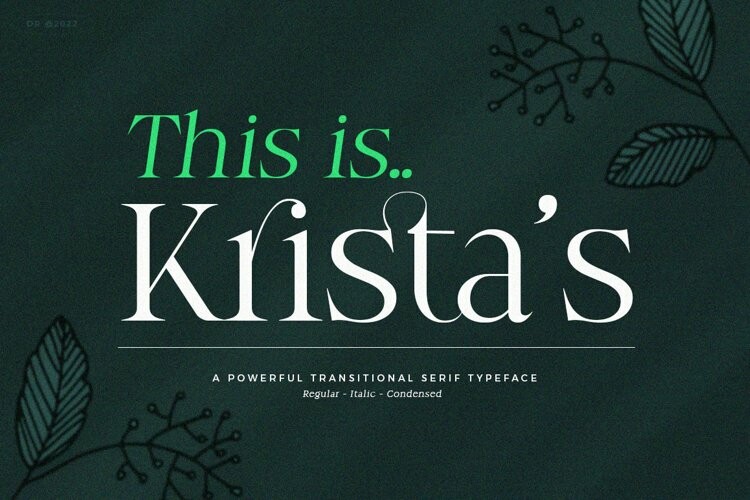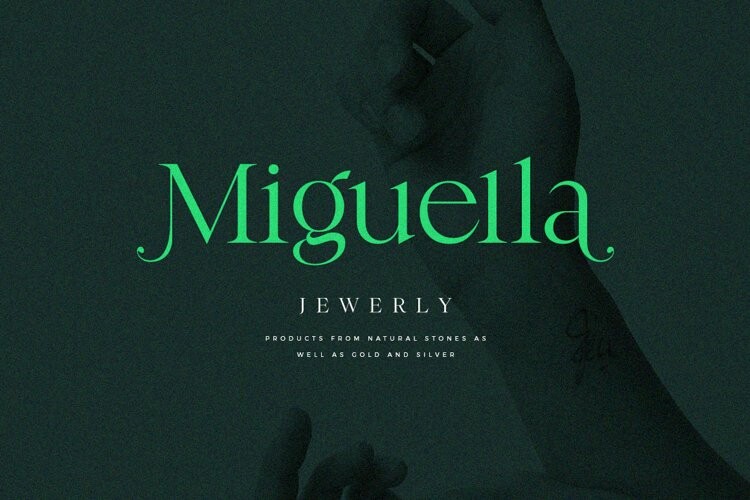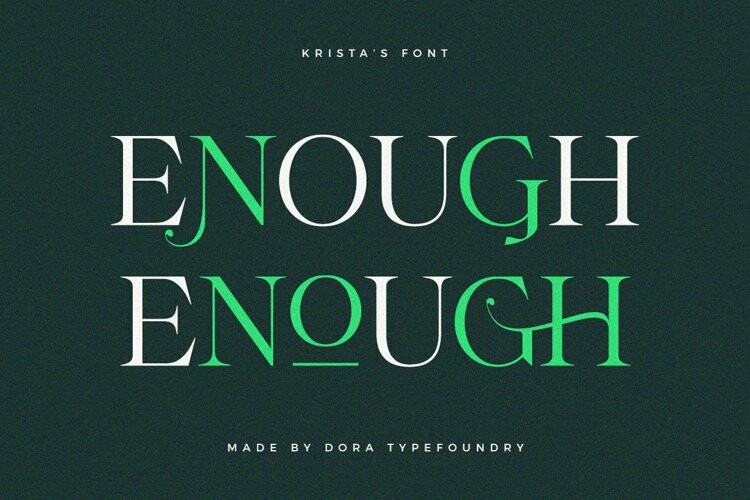
Krista’s Font
Krista's FontKrista’s is an elegant classy serif display font with a uniquely styled ligature character set that connects letters smoothly. It also has 100+ binders, 115+ alternatives for uppercase and lowercase letters and multilingual support.
This font is perfect for your creative projects like Logotypes, printed quotes, invitations, cards, product packaging, headers, Letterheads, Clothing, Web design, Magazines, Books, etc.